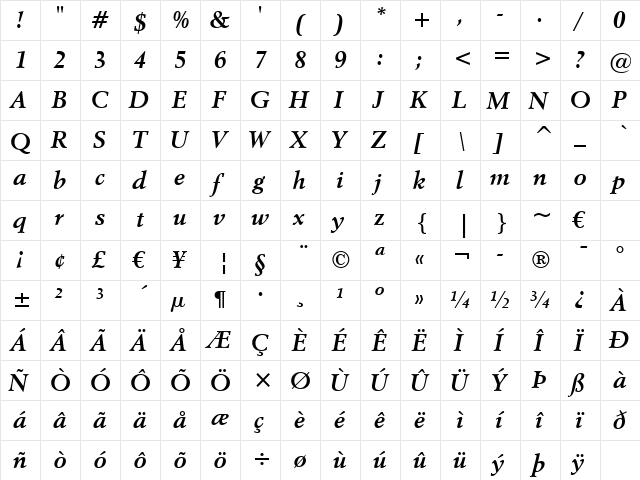
Revival565 BT Bold Italic
Design Context for Revival565 BT Typeface
Revival565 BT is a composed and adaptable typeface that performs quietly and consistently across a wide range of design contexts. The dynamic lean of this cut emphasises speed and emphasis in any layout. Its bold stroke weight gives it real presence on the page.
Pro Tip: Try Revival565 BT for annotation and caption copy alongside an upright companion — the contrast in angle creates a dynamic but ordered typographic system.